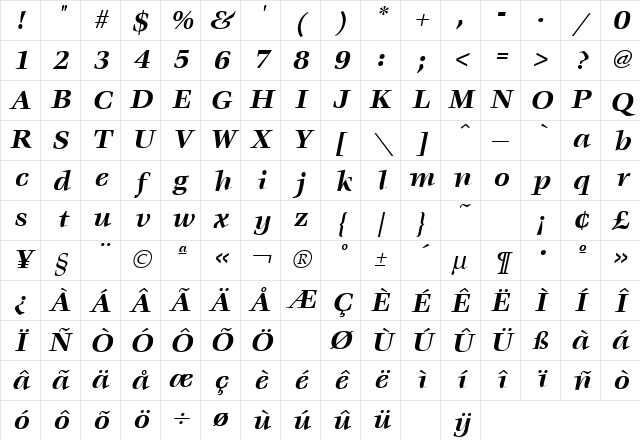
Veljovic Bold Italic
Design Context for Veljovic
Veljovic is a composed and adaptable typeface that performs quietly and consistently across a wide range of design contexts. The slanted form adds forward momentum and visual energy. Its bold stroke weight gives it real presence on the page.
Pro Tip: Use Veljovic for emphasis, pull quotes, and subheadings where its slanted energy can add rhythm to the layout.